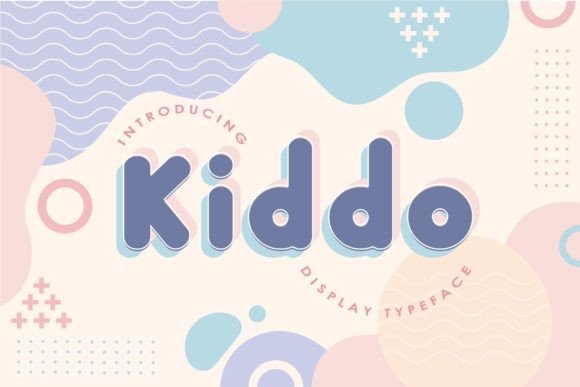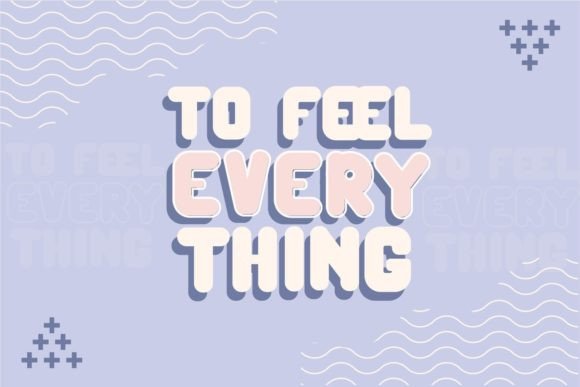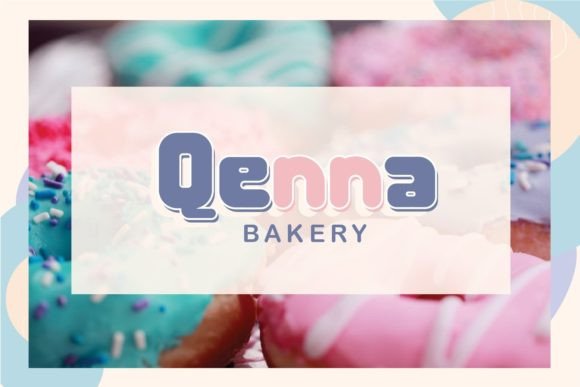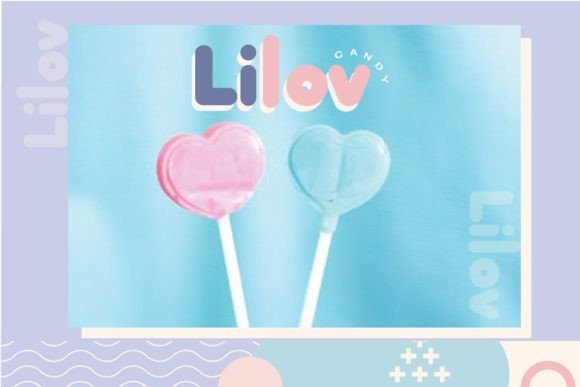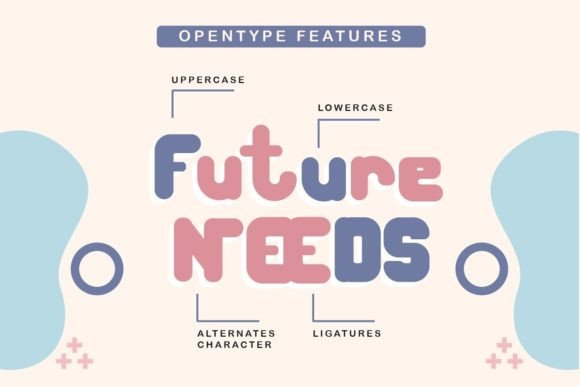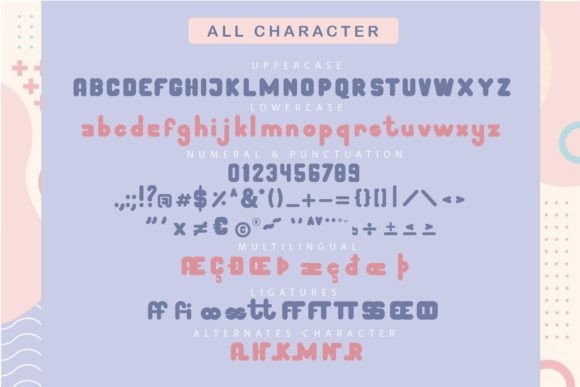
Unleashing the Fun in Your Designs
Remember that moment when you stumbled upon the perfect font that made your design pop? For designers, it’s a feeling that never gets old. The thrill of discovering a font that captures the essence of your creative vision is what makes our job so exciting.
Enter Kiddo Font, a bold and playful font that’s sure to bring a smile to your face. With its thick and chunky texture, Kiddo Font is perfect for creating fun and eye-catching designs that will grab anyone’s attention. Whether you’re working on branding or packaging projects, Kiddo Font is a valuable addition to your design toolkit.
Kiddo Font Key Features
- Unique Characteristics: Kiddo Font features a playful, child-friendly design with rounded edges and friendly letterforms, making it ideal for children’s books, educational materials, and other applications where a fun and approachable tone is desired.
- Stylistic Sets: Kiddo Font includes multiple stylistic sets, allowing users to customize the font to suit different moods and themes, from playful to elegant.
Kiddo Font Review
I recently had the chance to play around with the Kiddo Font, and I must say it’s a mixed bag. Let’s start with the good stuff: ✨ The font’s playful, whimsical nature is perfect for projects that require a youthful and energetic vibe. The rounded edges and bubbly texture add a touch of warmth that’s hard to resist. The font is also surprisingly versatile, working well in both digital and print applications.
One area where Kiddo Font shines is in its readability. The font is designed to be easy on the eyes, making it perfect for long blocks of text or projects where legibility is crucial. The font also comes in a variety of weights, from light to bold, allowing for some great depth and contrast in designs.
While the Kiddo Font is a great addition to any designer’s toolkit, there are some limitations to be aware of:
- ⚠️ Limited language support, making it less suitable for international projects
- ⚠️ May not be the best choice for projects requiring a more formal tone
- ⚠️ Some users may find the font’s playful nature to be overly juvenile
Overall, the Kiddo Font is a solid choice for projects that require a lighthearted and approachable tone. While it may not be the best fit for every project, it’s definitely worth considering for those looking to add a touch of whimsy to their designs.
Tips for Getting the Most Out of Kiddo Font
1. Experiment with different font sizes and colors to create visual interest.
2. Use Kiddo Font for titles and headings to add a playful touch.
3. Pair Kiddo Font with other fonts to create a unique and eye-catching design.
Kiddo Font is perfect for:
1. Children’s book illustrations and design.
2. Playful advertising and marketing materials.
3. Fun and creative social media graphics.